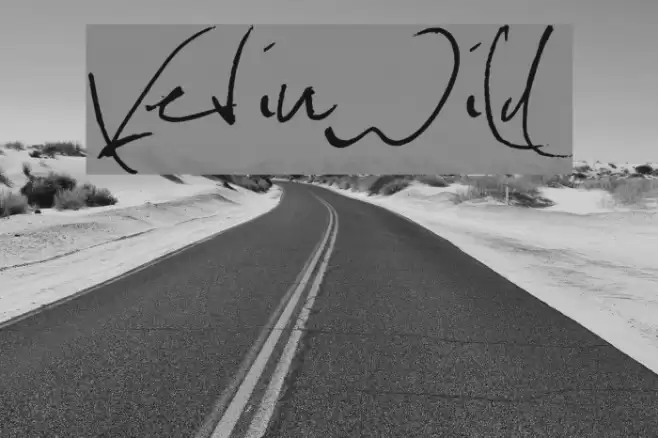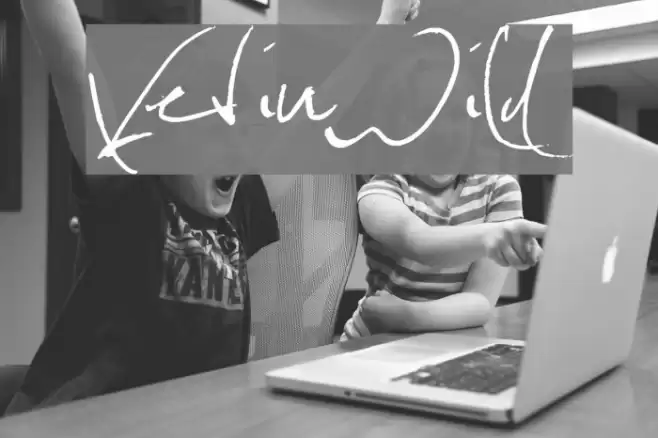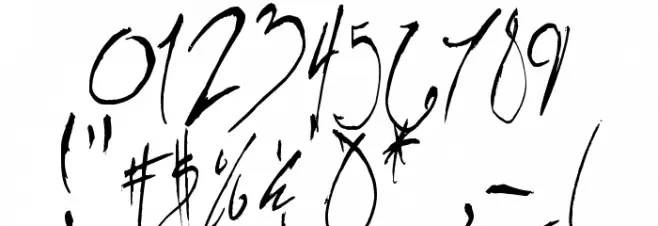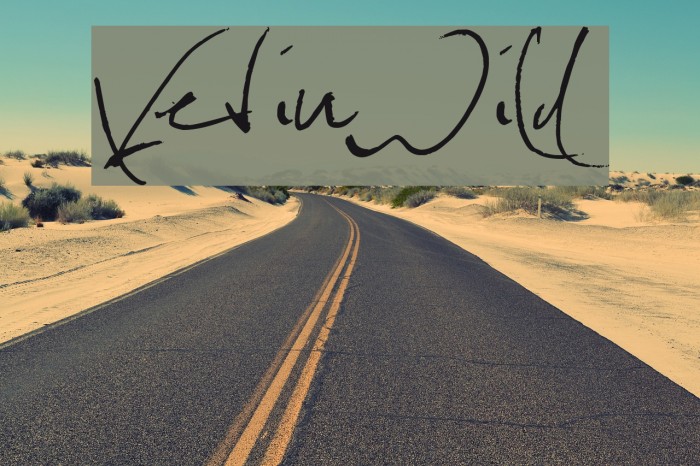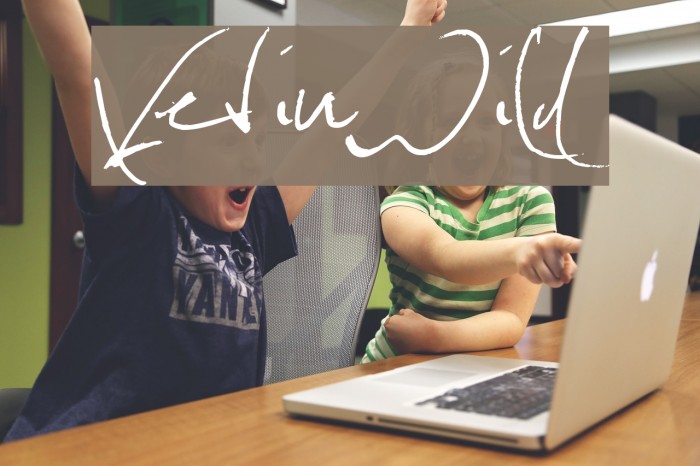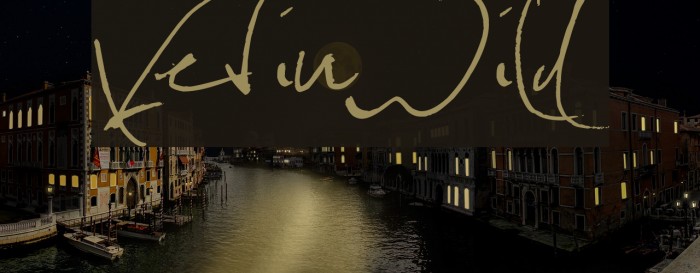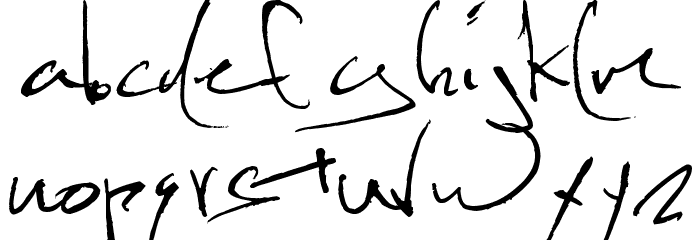
KevinWild Font
KevinWild Description
This font exhibits a dynamic and expressive handwritten style, characterized by its fluid and spontaneous strokes. The letters are crafted with a sense of movement and energy, giving it a lively appearance. The uppercase and lowercase letters maintain a consistent flow, while the numerals and special characters integrate seamlessly with the overall design. The strokes vary in thickness, adding a sense of depth and texture to the text. This font is ideal for projects that require a personal and artistic touch, such as invitations, greeting cards, or creative branding.
A dynamic and expressive handwritten font with fluid strokes from Handwritten fonts.
- Proposed Projects: Ideal for invitations, greeting cards, artistic branding, and creative projects.
- Use Case: Logos, Headlines, Artistic projects